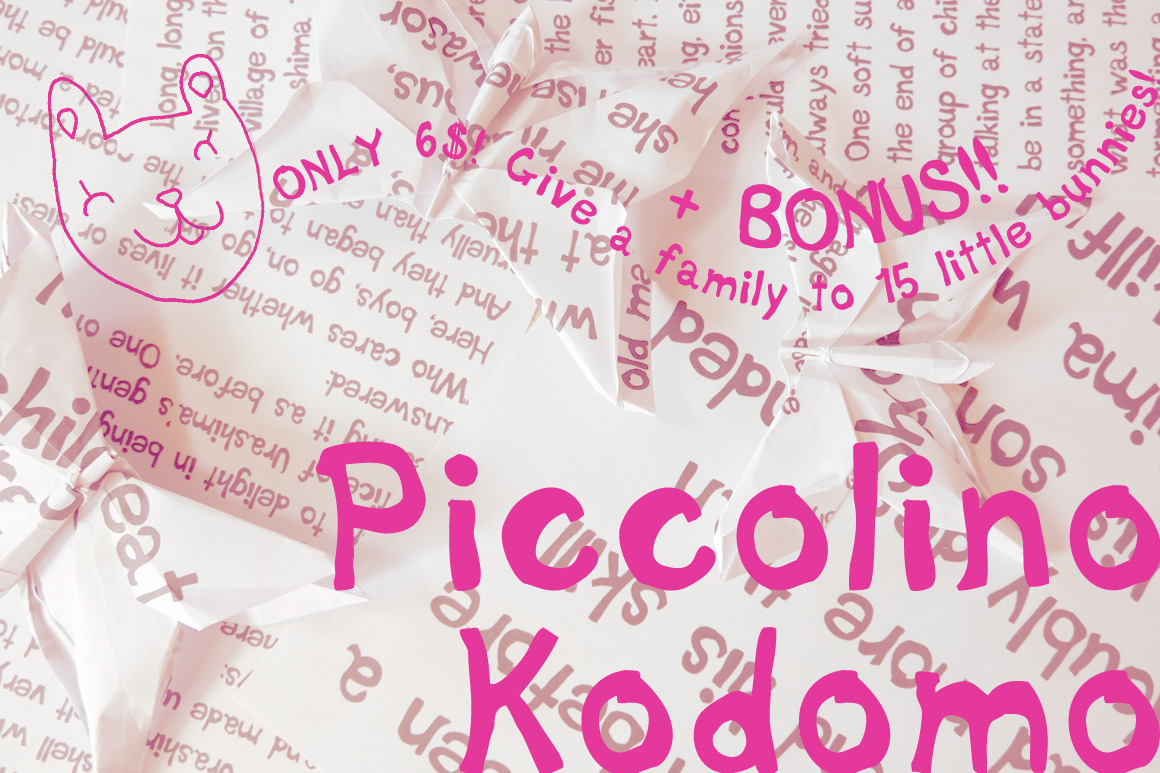
Piccolino Kodomo, font & bunnybonus!
Piccolino Kodomo is a handmade font by kids, for kids. As a bonus, there are 14 hand drawn bunny faces as well.
Enjoy the unique kid feeling that we adults strive to imitate!
Recently my 5 years old daughter took interest in reading kid books: one day the conversation turned about the shape of those letters, and how to make them. We spent one Sunday sketching and choosing together the shape of each letter, then I crafted the font with those. Meanwhile she drew cute bunnies.
Since she's half Japanese half Italian, we decided to call it Piccolino Kodomo ("little kid").
Needless to say, our little kid well suits children related products. Give it a try!